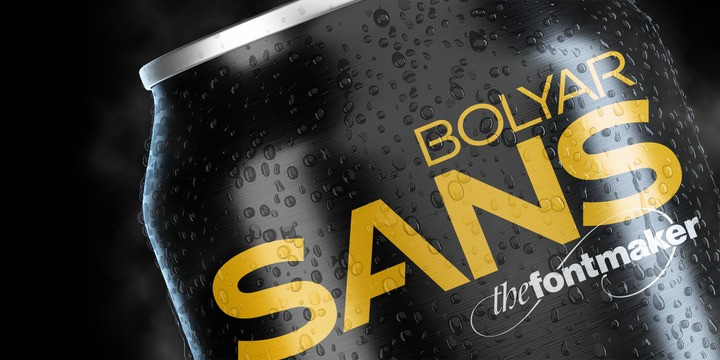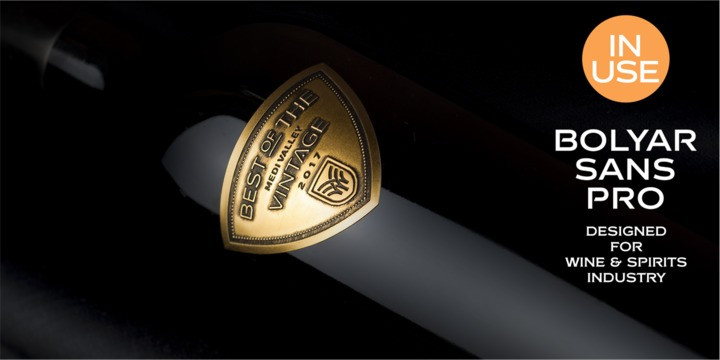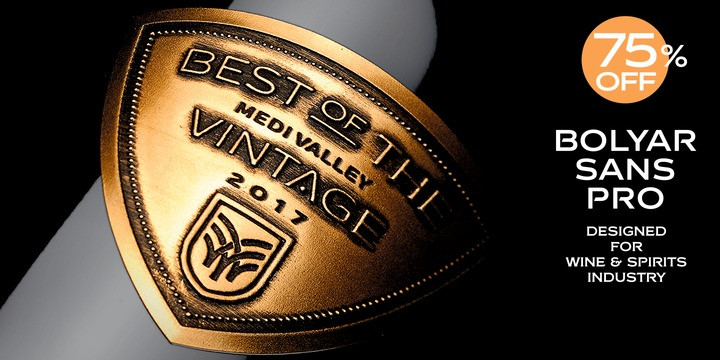
FM Bolyar Sans Pro Font
This is Bolyar Sans font family. For us it is a dream-come-true. It took more than 1 year hard work to transform the existing Bolyar Pro from Serif to Sans Serif version. The result really surprised even us from The Fontmaker and we decided to develop it in 9 instead of 7 weights. So at the end we created 7 different styles of Bolyar sans each consisting from 9 precise weights.
Bolyar Sans is not just another font family in our portfolio – it is the essence from all our efforts thru the past 5 years to create a powerful type tool that could easily meet very diverse and complex demands of modern design. Furthermore, like all its predecessors, Bolyar Sans is a type concept created by Designers for Designers. If you are in wine and spirits industry, packaging design, or you just love to work with strong headlines that effortlessly could turn into brand logos, then you should definitely try our Bolyar Sans. It is designed for this.
Of course there are plenty of different features like multilingual support, ligatures, alternates, we even added adaptive over- and underlining to make it even more complex in its use.